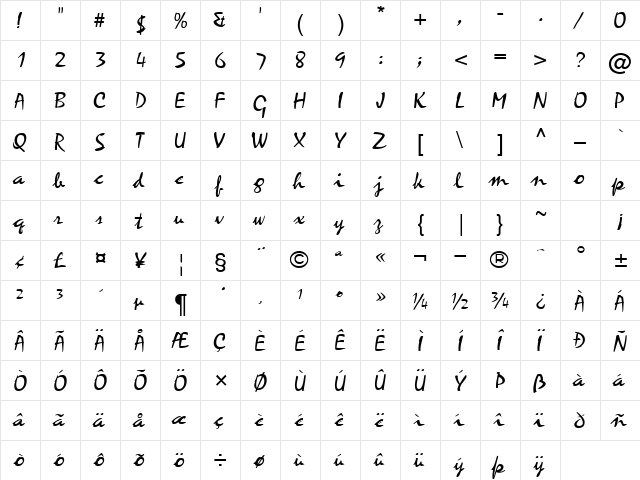
MistyScript Normal
Design Context for MistyScript Typeface
MistyScript flows with the natural rhythm of handwritten lettering, making it ideal for designs that call for warmth and personal expression.
Font Pairing: Combine MistyScript with a simple geometric sans for maximum contrast — the tension between flowing curves and clean structure is a classic typographic pairing.
Pro Tip: Pair MistyScript with a clean sans-serif for supporting text. The contrast between fluid script and geometric structure creates an elegant typographic hierarchy.